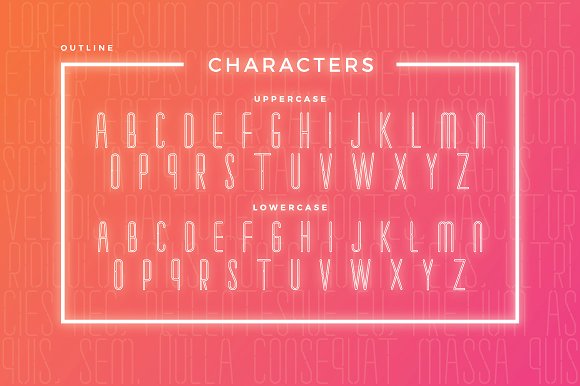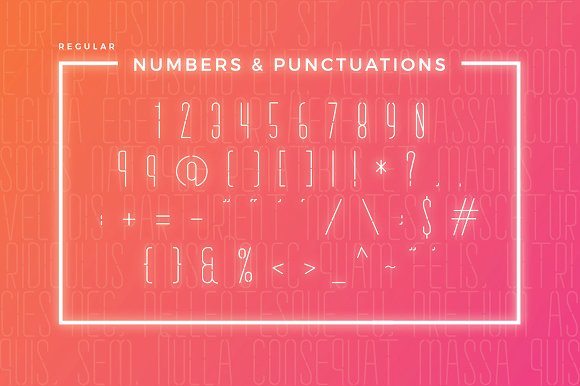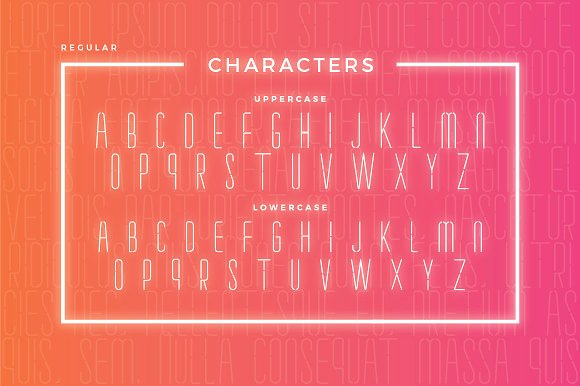
Caang Font
Caang is a typeface inspired by neon light signages, featuring minimal letter forms with smooth rounded corners and realistic neon tubes. This font is perfect for adding some glowing light effects or designing real world neon signs.